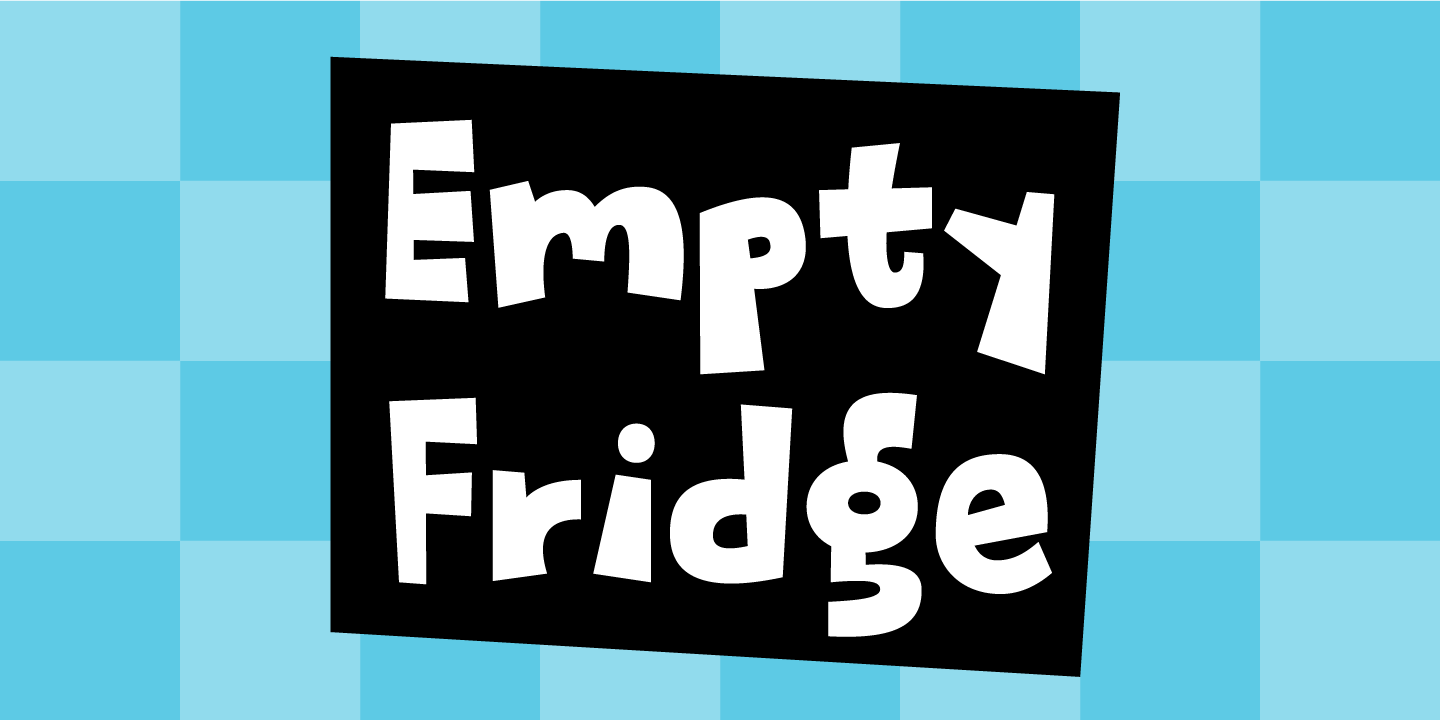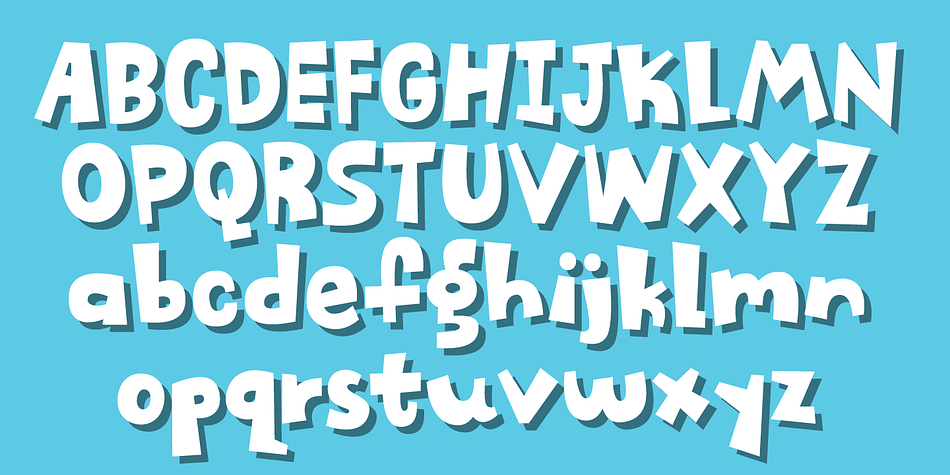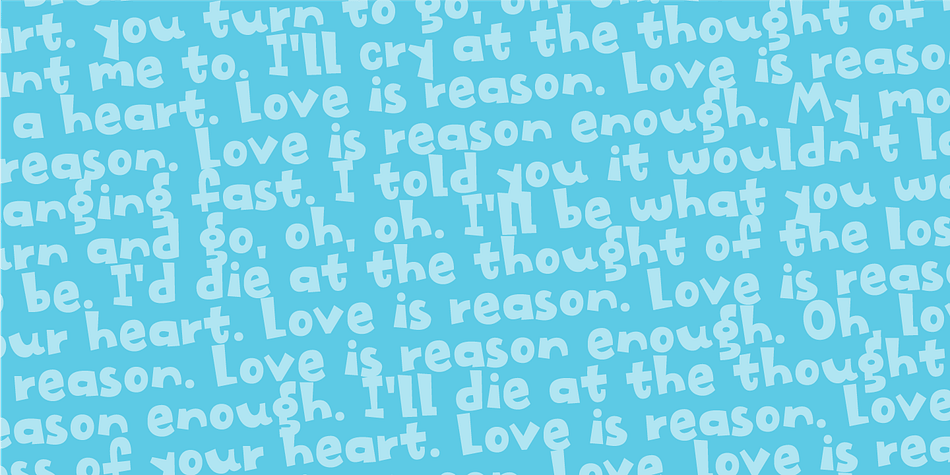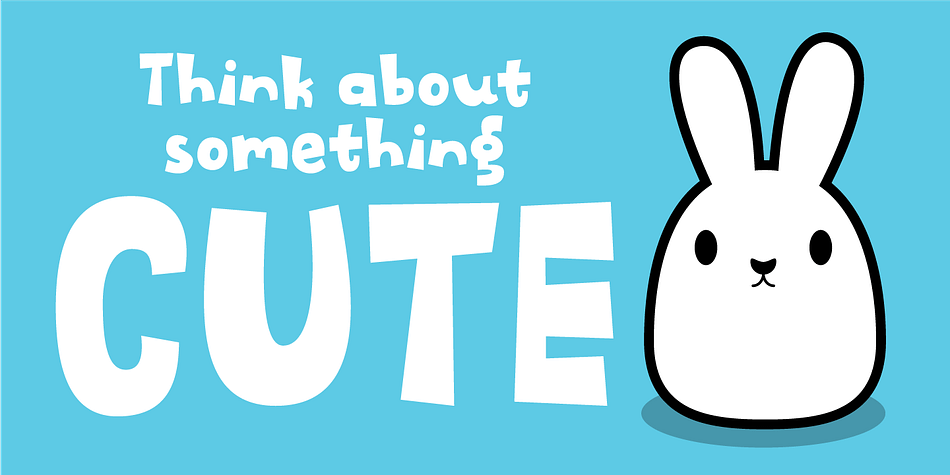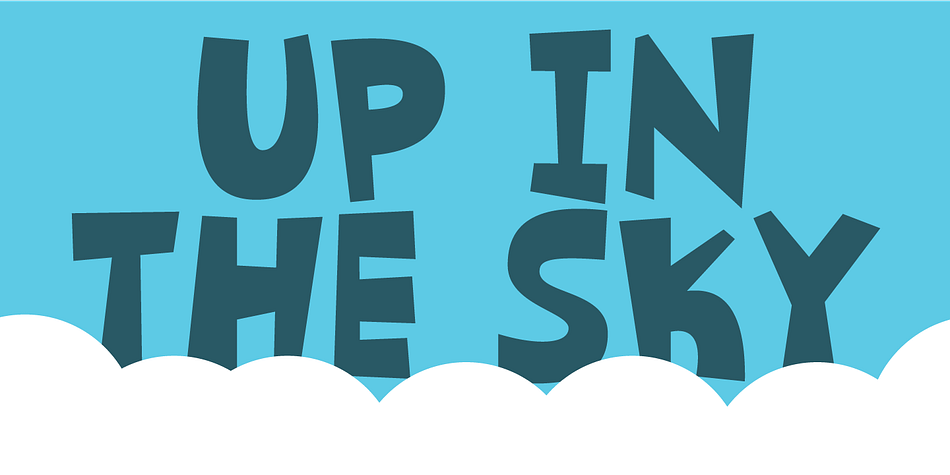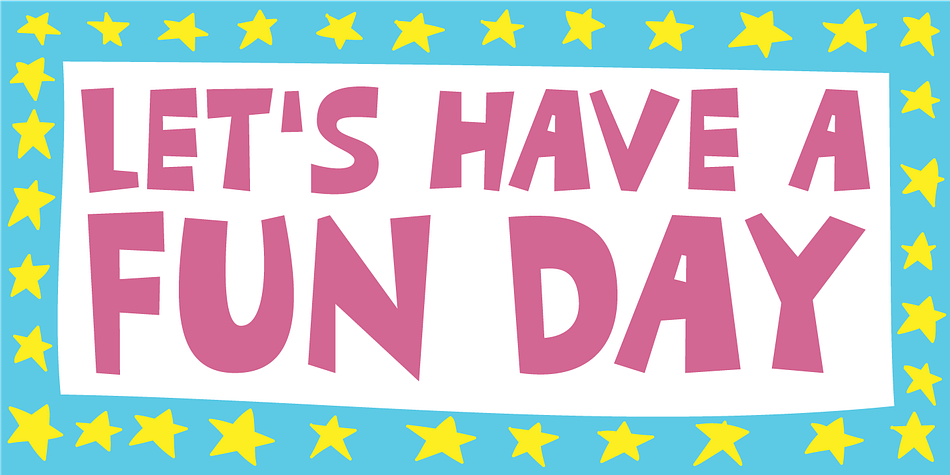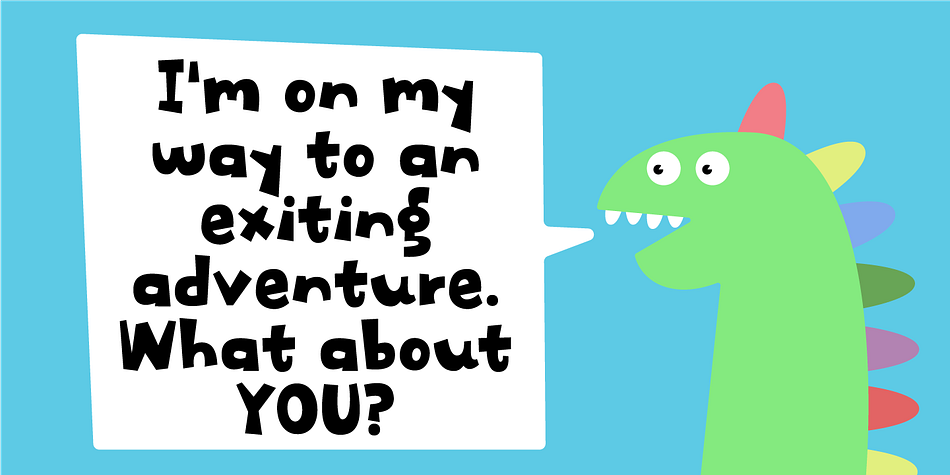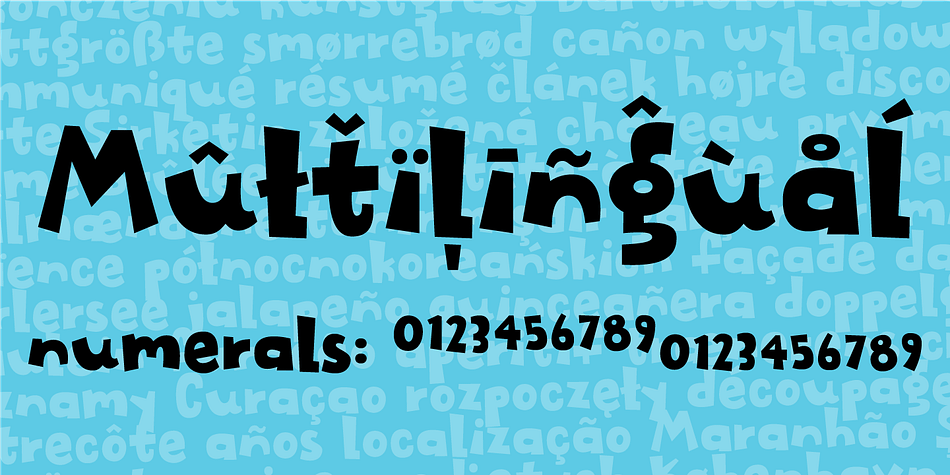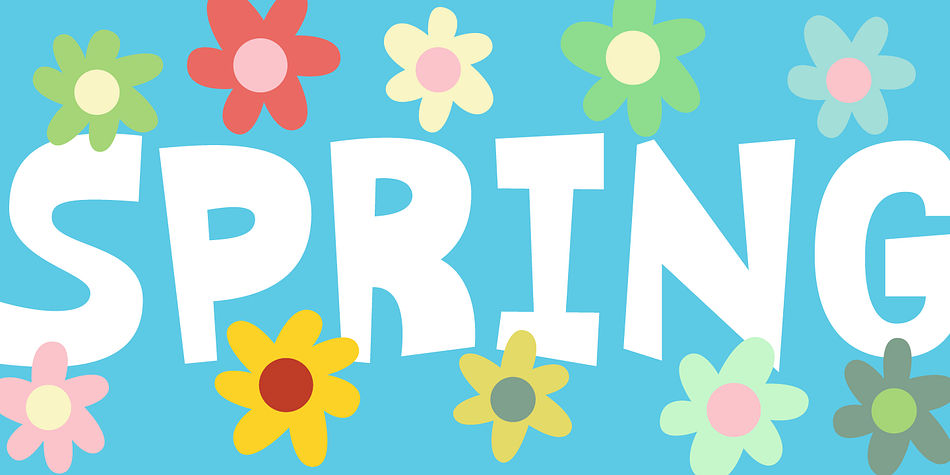
Empty Fridge
Designed by Jakob Fischer, Empty Fridge is a display sans and kids font family. This typeface has two styles and was published by Pizzadude.dk.
Empty Fridge is my crazy, wacky and totally unpredictable comic font.
Forget about typographic rules, but play along with the goofiness in each and every letter!